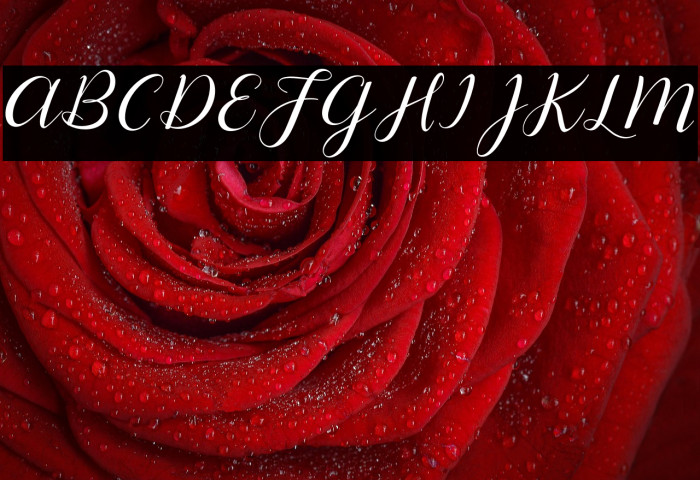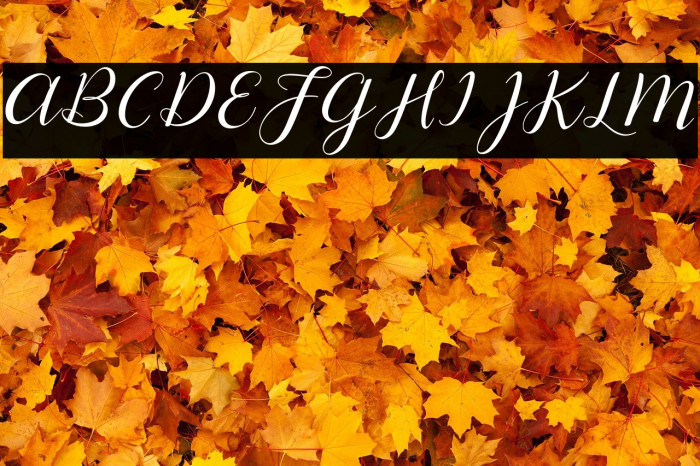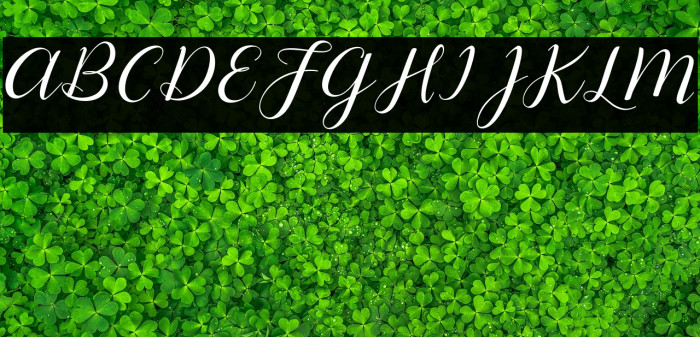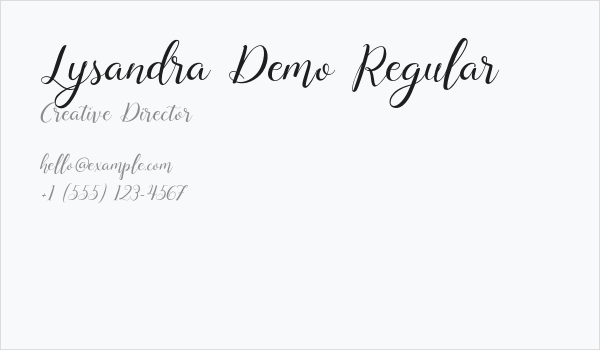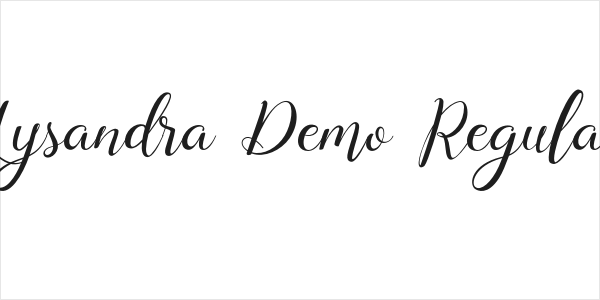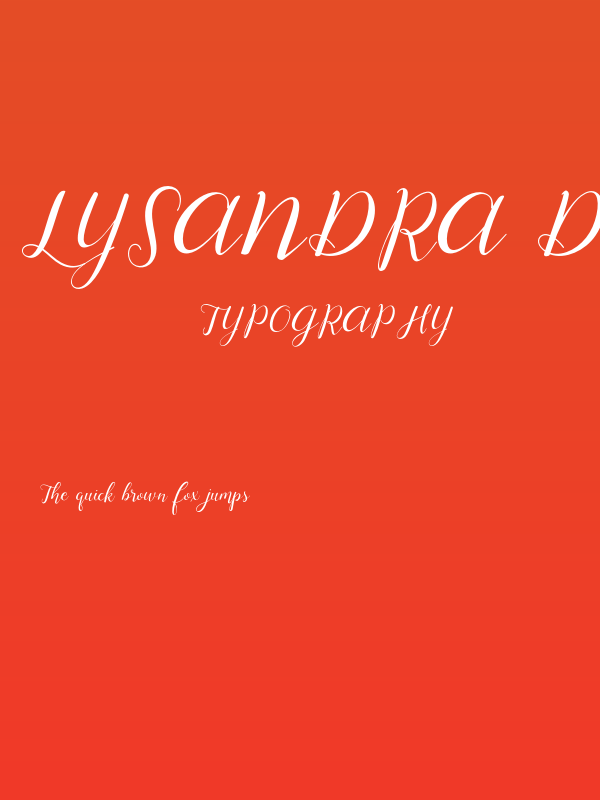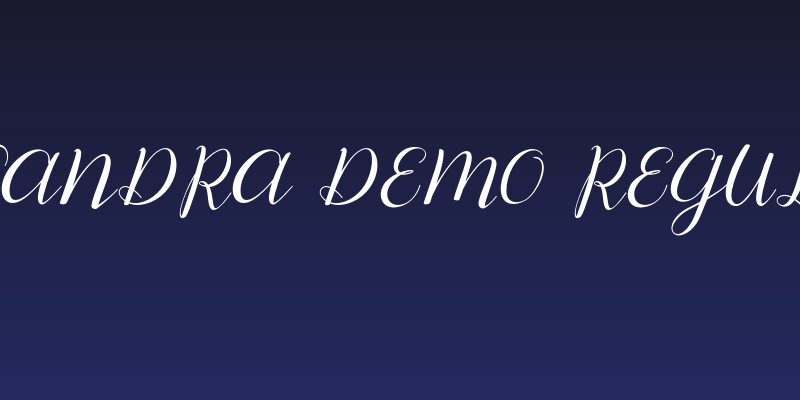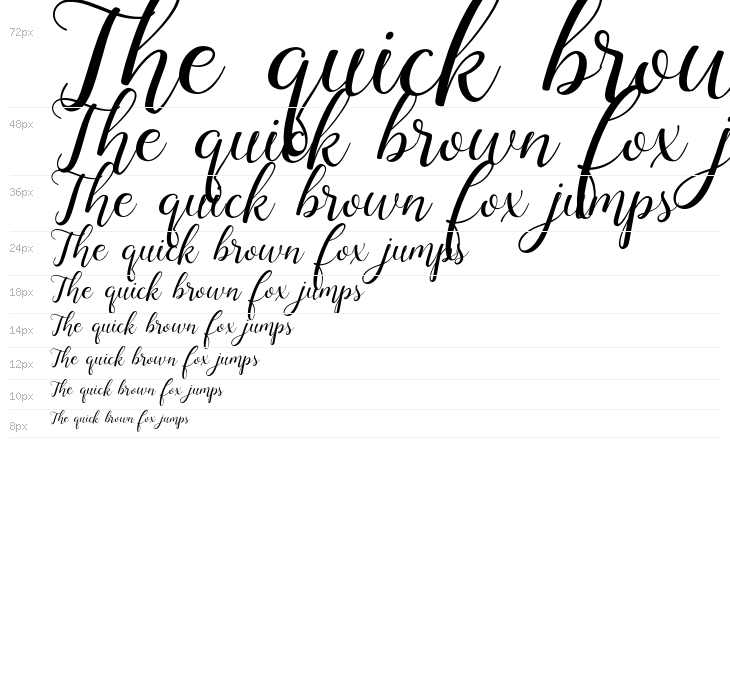
Lysandra Demo Regular Font
Lysandra Demo Regular Description
This font showcases an elegant and flowing script style, characterized by its graceful curves and fluid connections between letters. The uppercase letters exhibit a sophisticated flair with extended loops and swashes, while the lowercase letters maintain a consistent and harmonious flow. The numerals are designed with a similar elegance, featuring subtle curves and a balanced appearance. Special characters like the ampersand and percentage sign are crafted with intricate details, adding to the overall decorative appeal. The font's design is reminiscent of classic calligraphy, making it suitable for projects that require a touch of elegance and sophistication.
| Proposed Projects | Ideal for wedding invitations, elegant branding, greeting cards, and upscale packaging. |